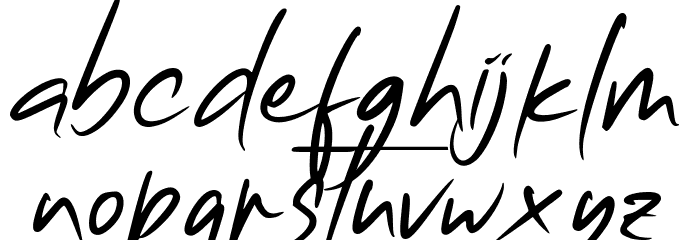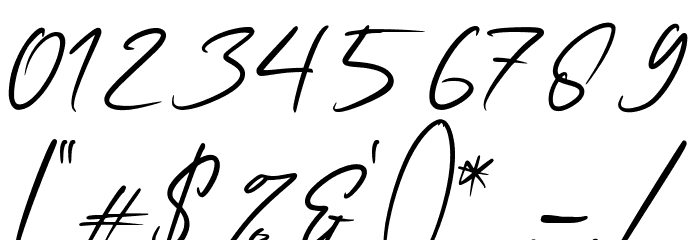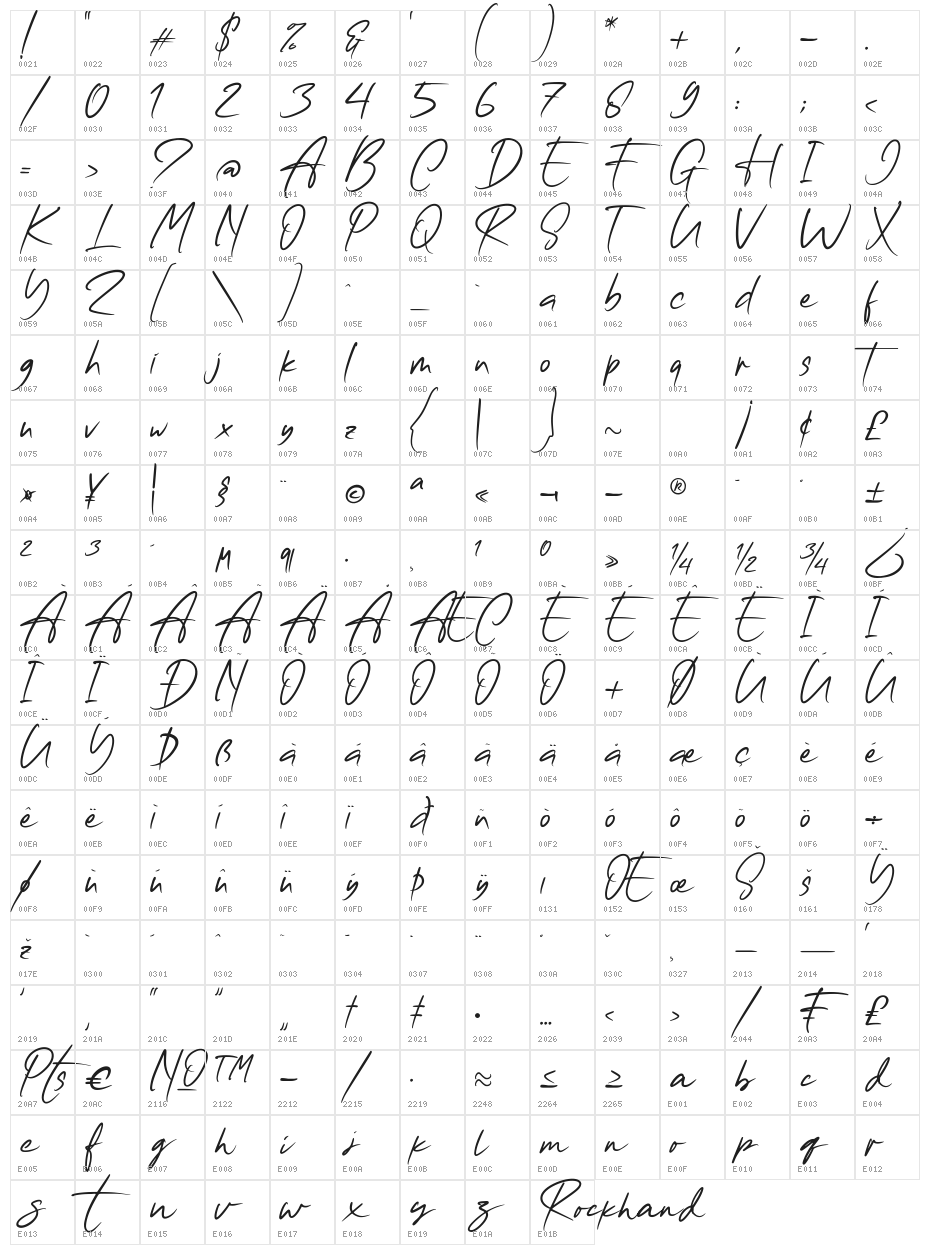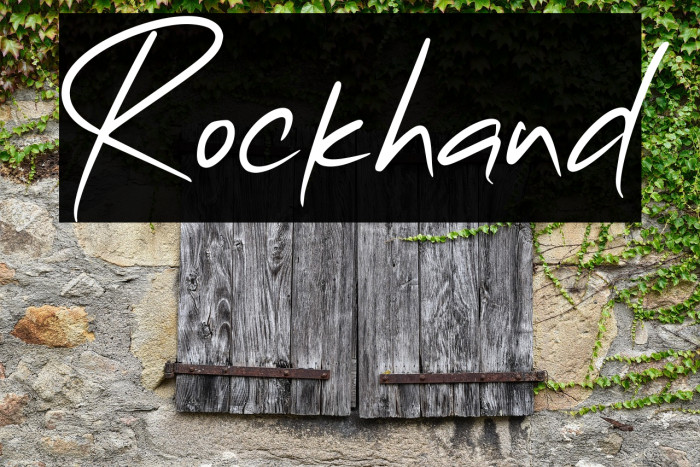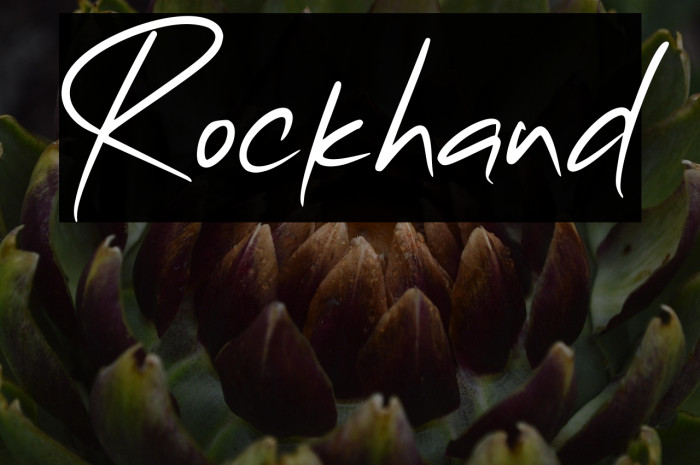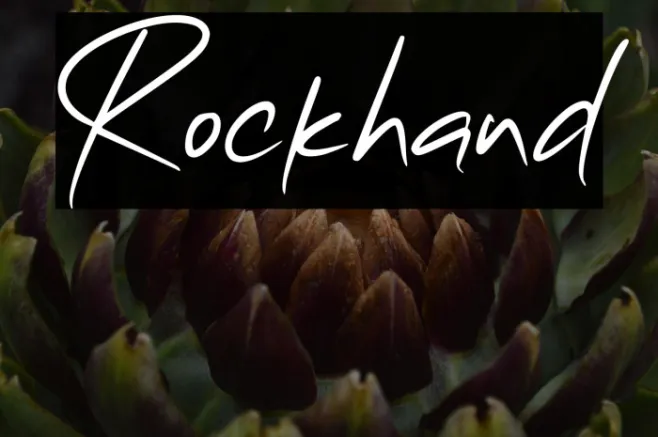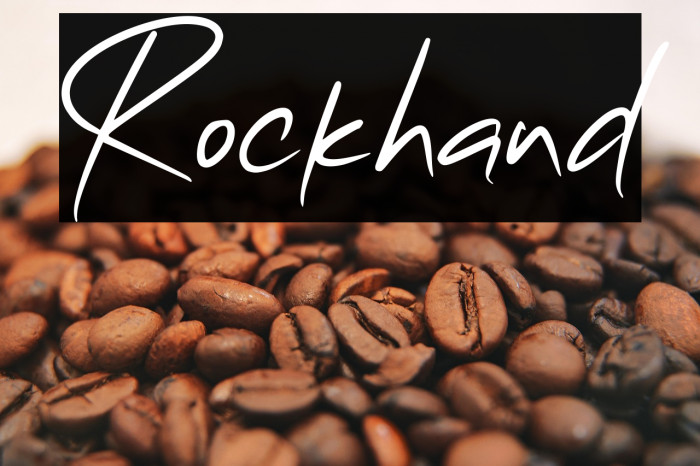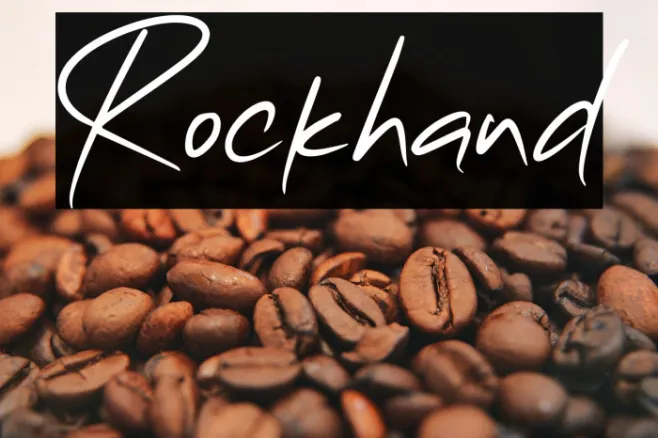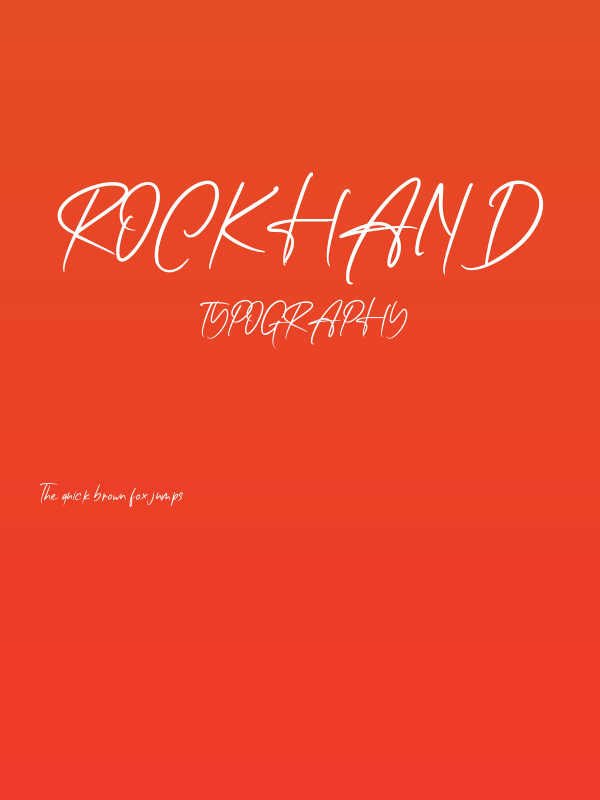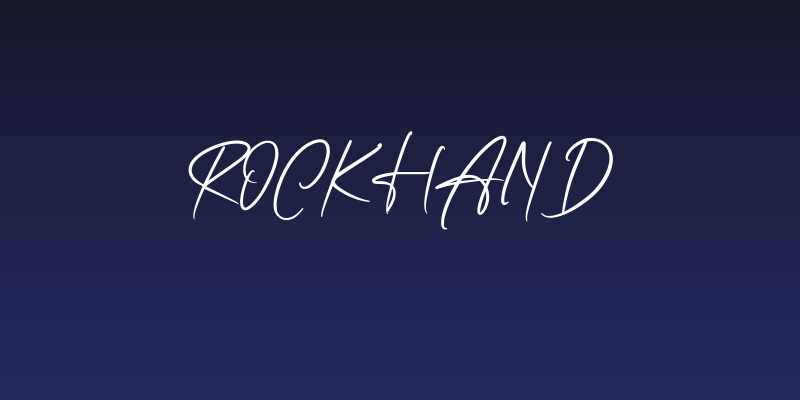
Rockhand Font
This font exudes a dynamic and energetic feel, characterized by its fluid, handwritten style. The letters are crafted with a natural, flowing motion, giving an impression of spontaneity and creativity. The uppercase and lowercase letters maintain a consistent style, with elongated strokes and a slight slant that adds to its casual elegance. The numerals and special characters are designed to match the overall aesthetic, ensuring a cohesive look across all text elements. This font is perfect for projects that require a personal touch, such as invitations, greeting cards, or artistic branding.
A dynamic, handwritten font with fluid, elongated strokes and a casual elegance.
- Proposed Projects: Ideal for invitations, greeting cards, artistic branding, and creative projects.
- Overall Style: Casual, Artistic
- Use Case: Headlines, Artistic branding, Invitations